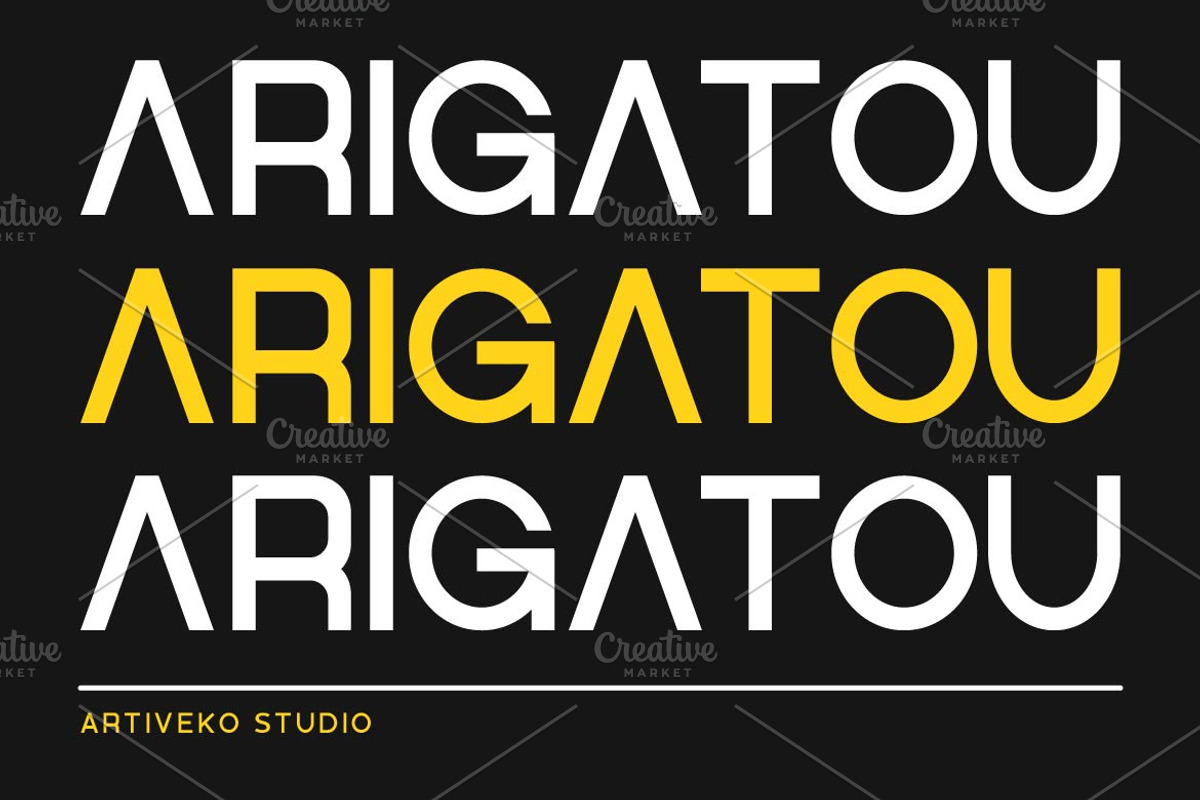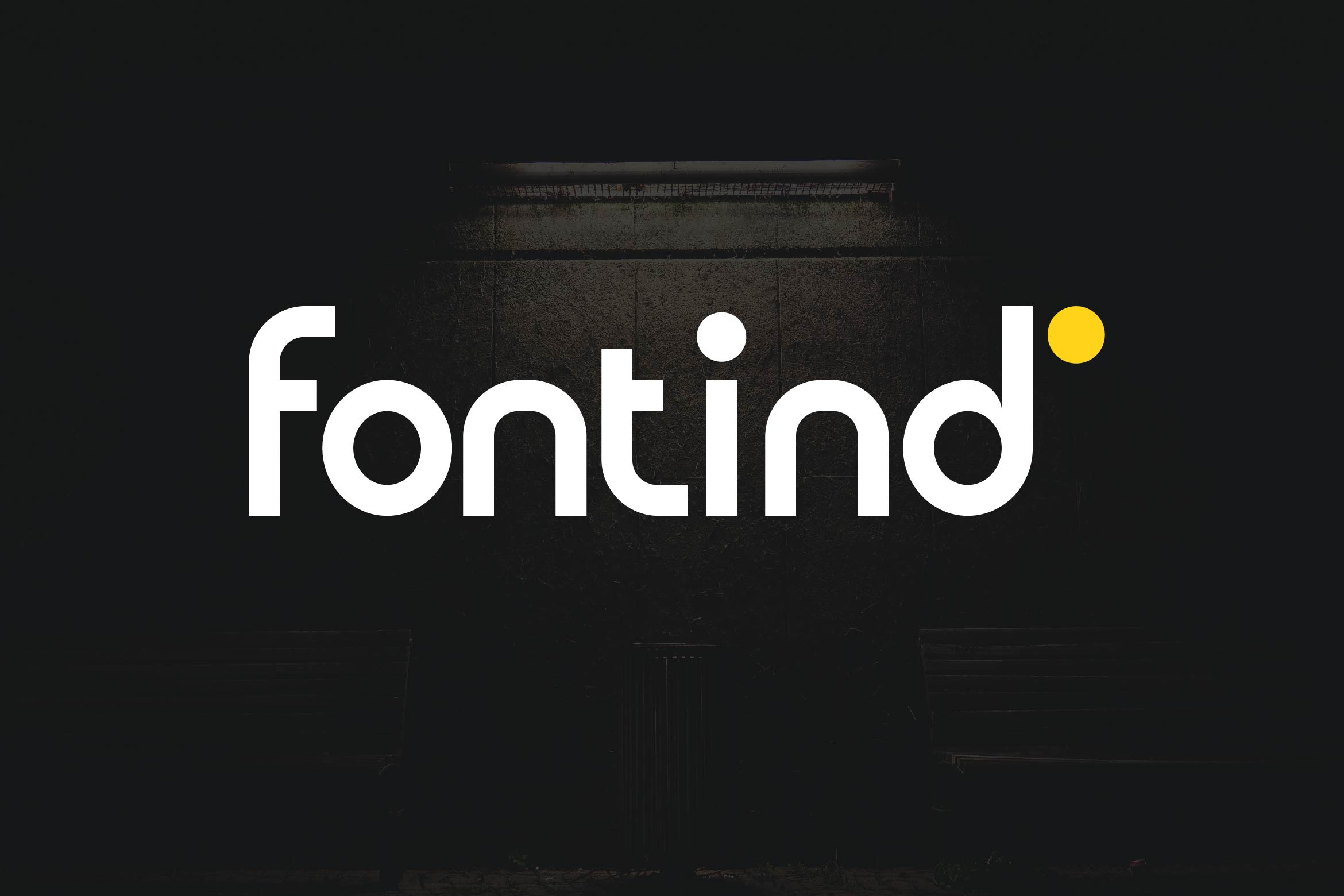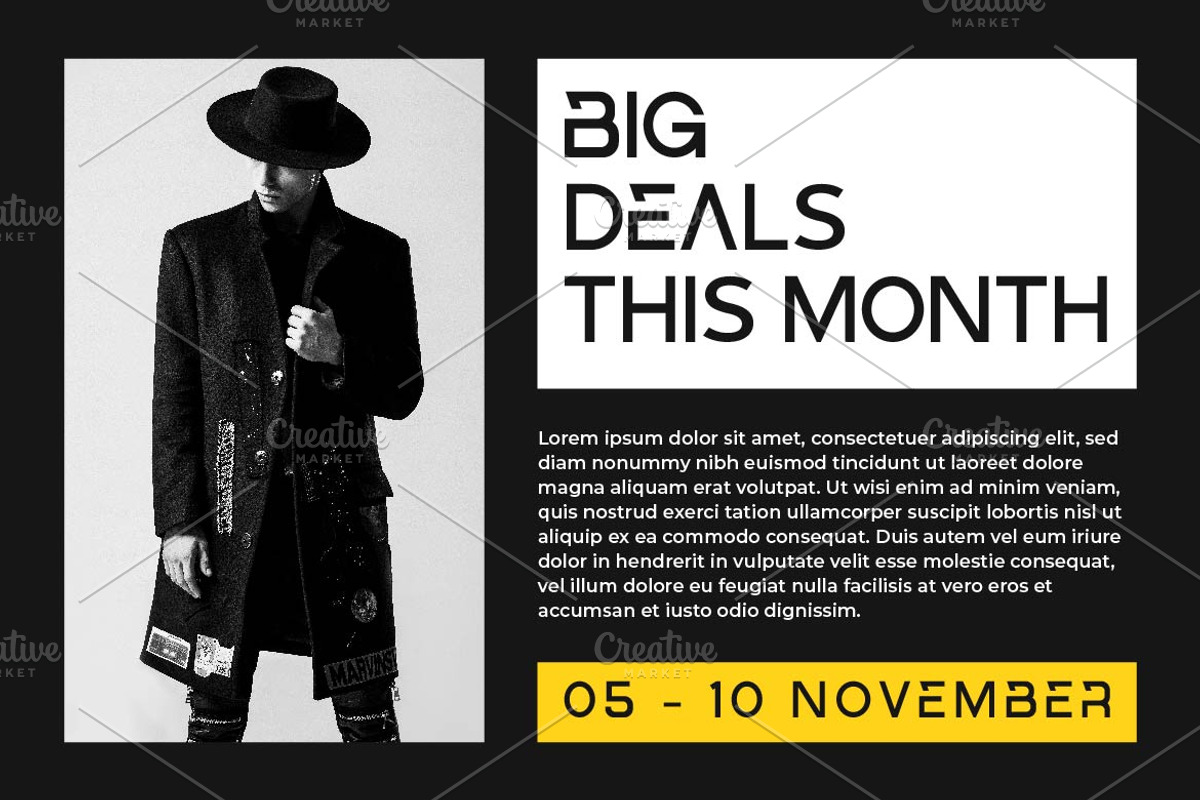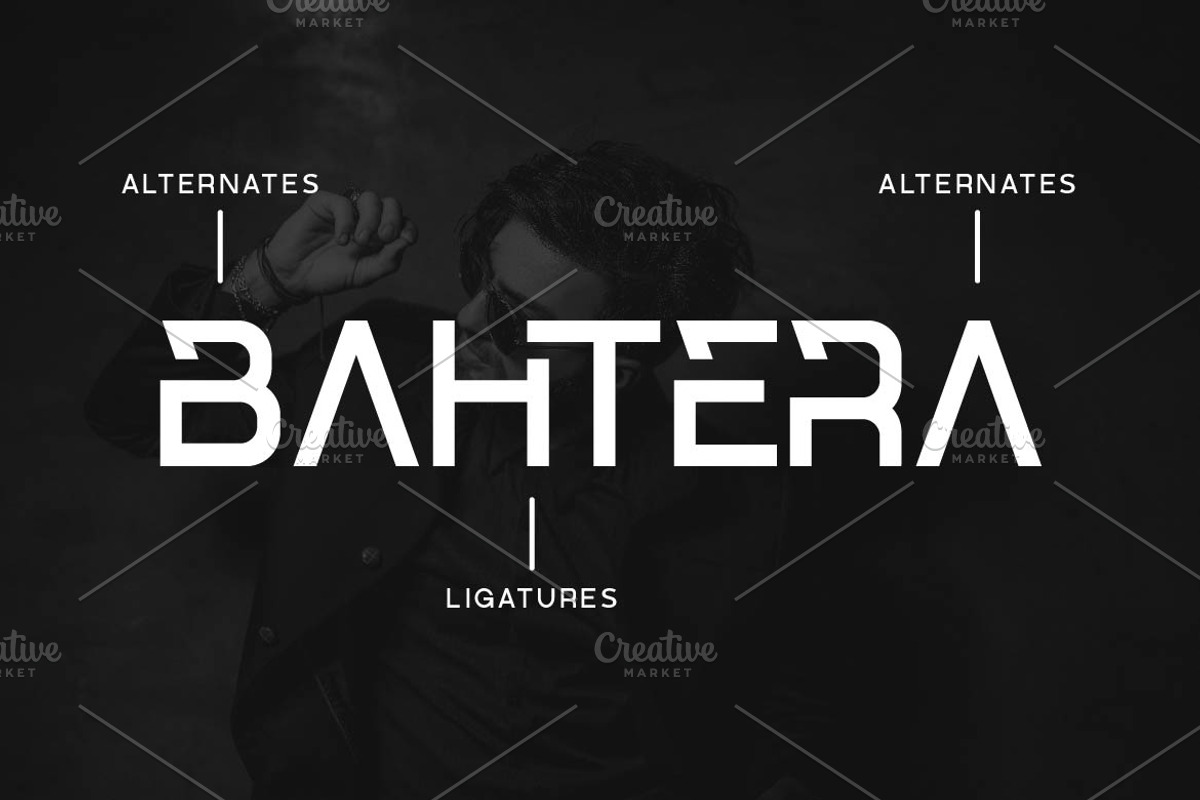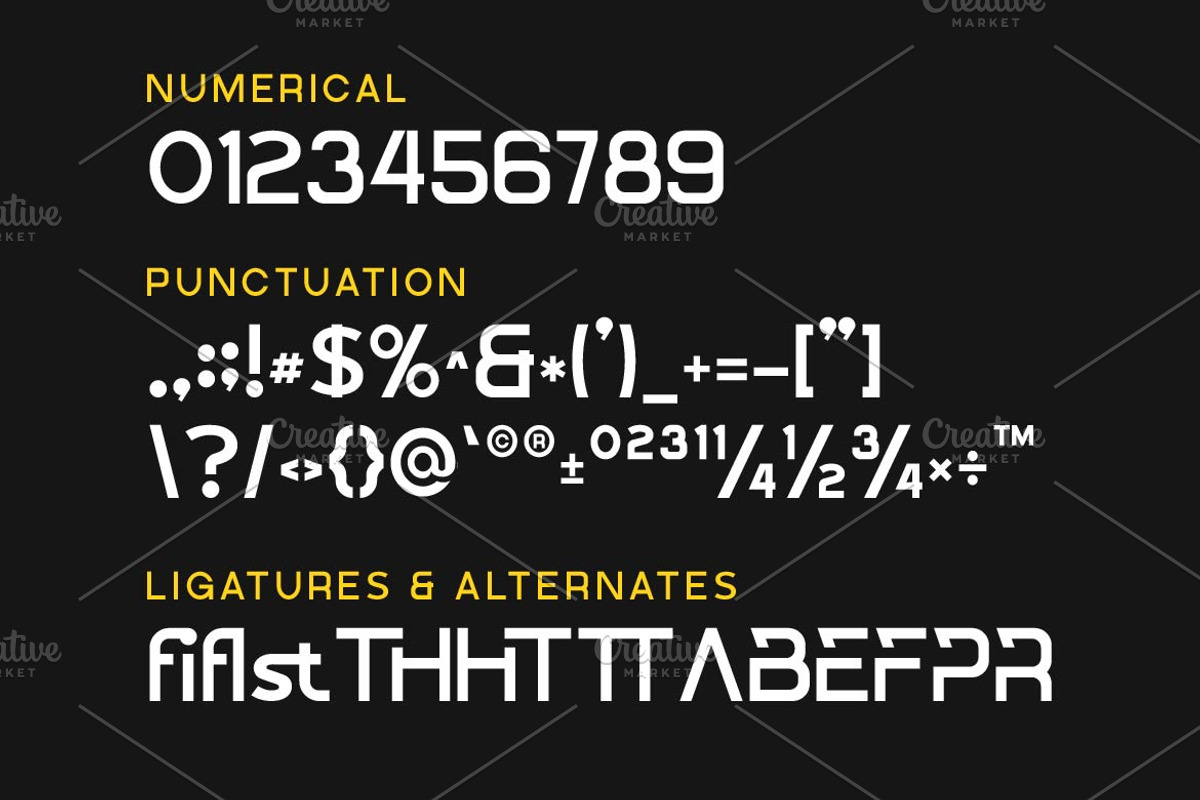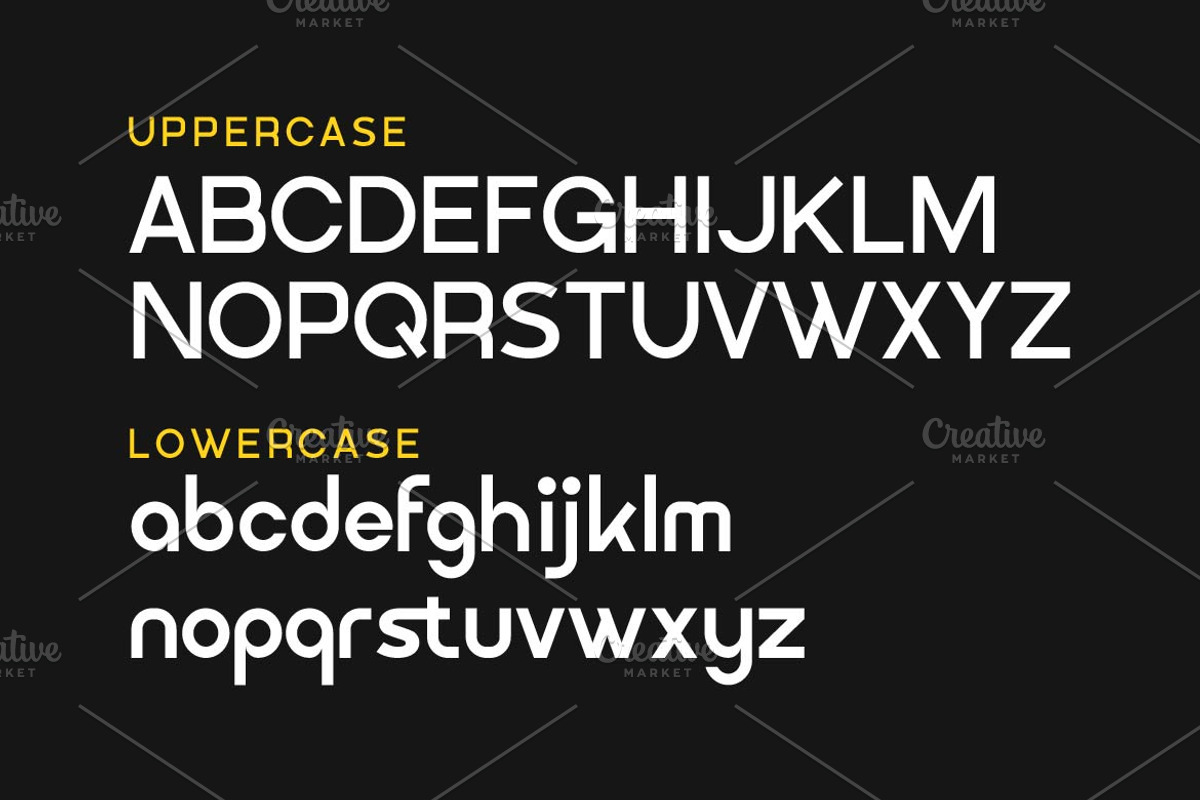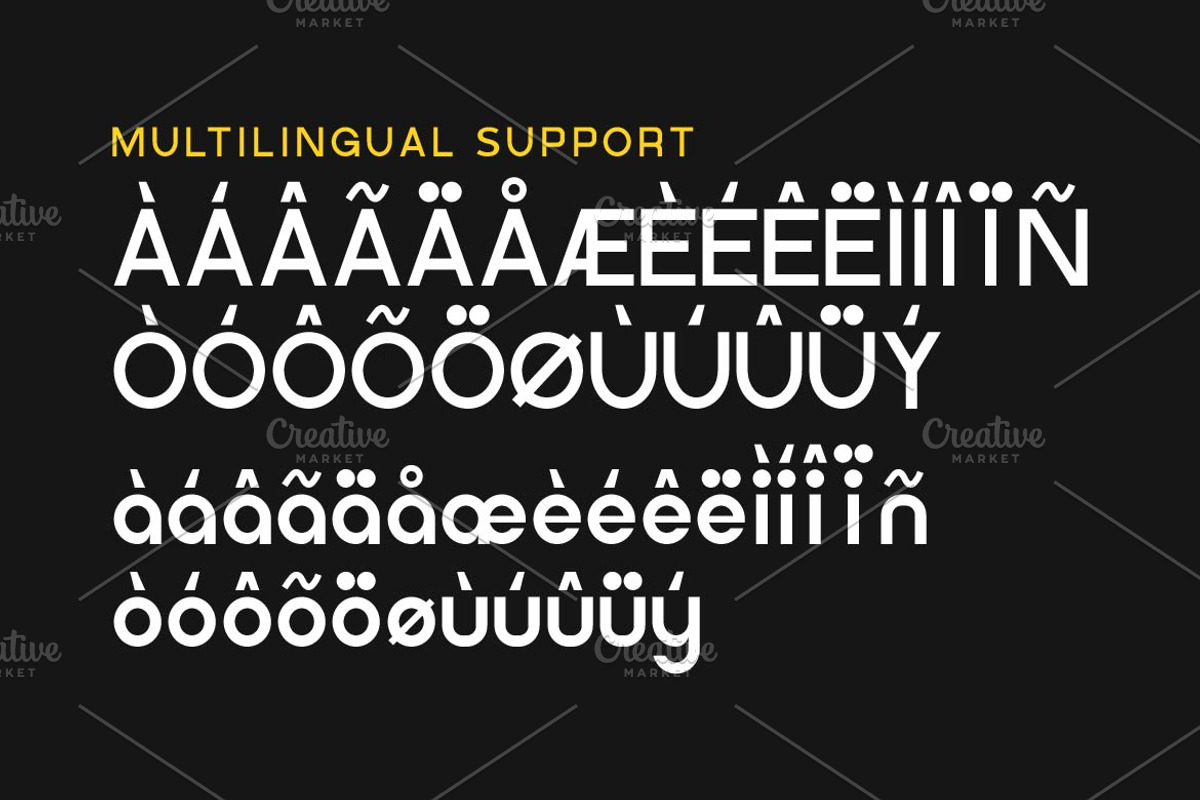
Fontind Sans Font
Fontind is a unique sans serif font designed by Iwan Alwan, featuring unconventional and creative letterforms that break from traditional design. Ideal for modern branding, logos, and editorial layouts, Fontind adds a fresh and distinctive edge to any project. With multilingual support, ligatures, and alternates, Fontind offers both versatility and originality, making it perfect for designs that aim to stand out with a bold, inventive aesthetic.